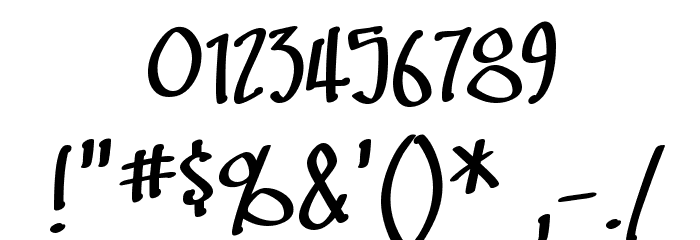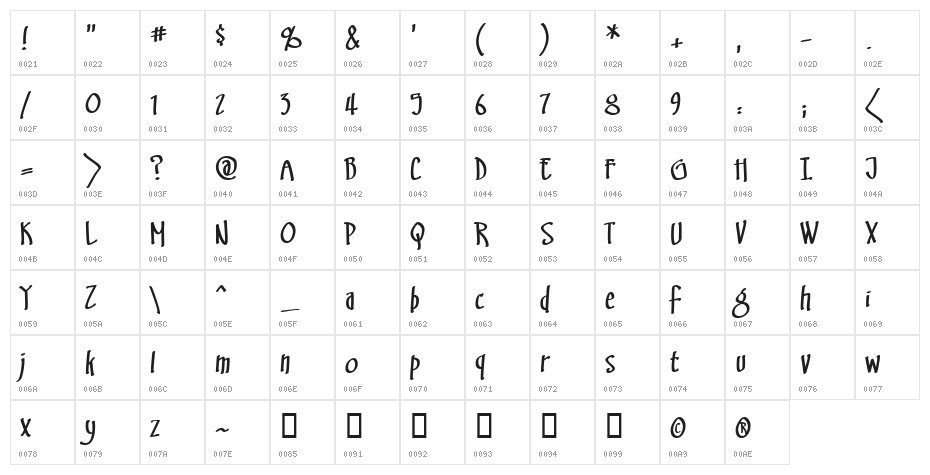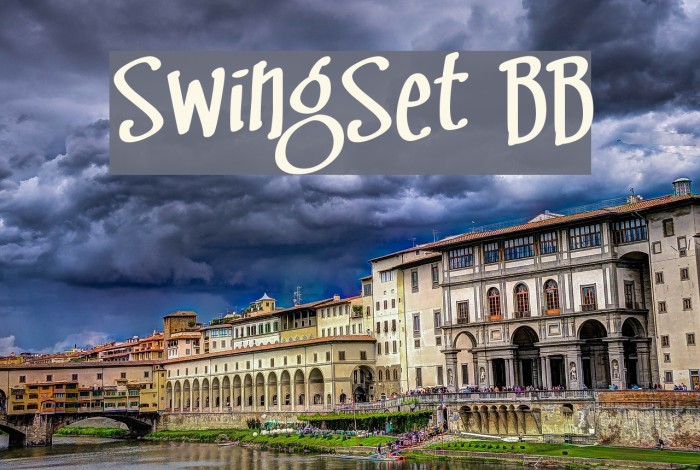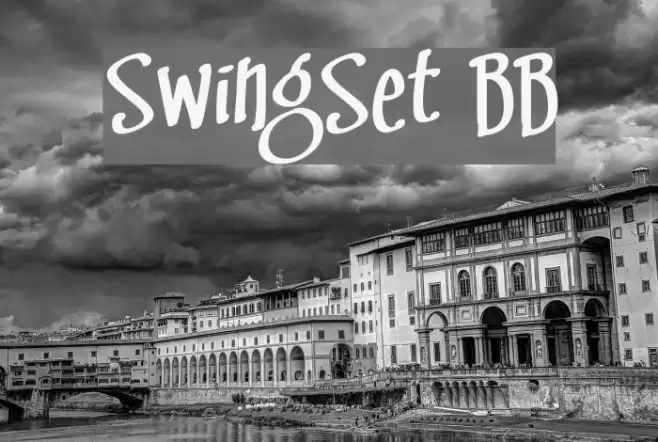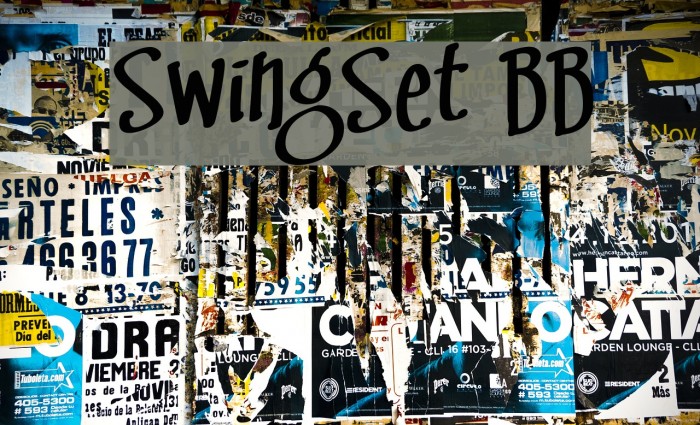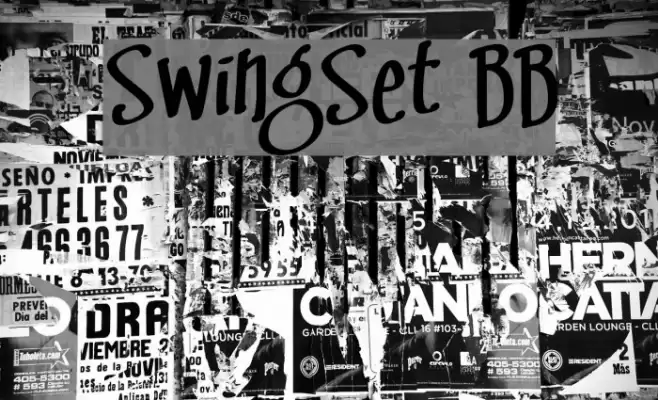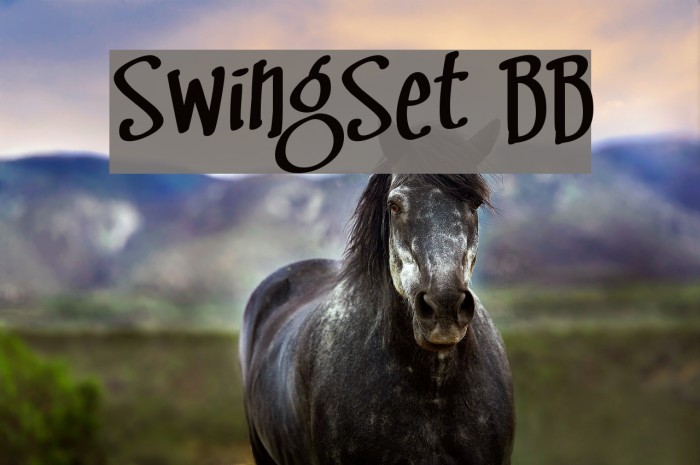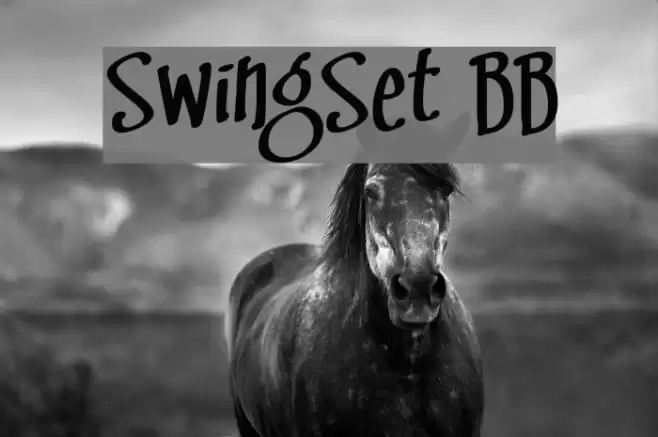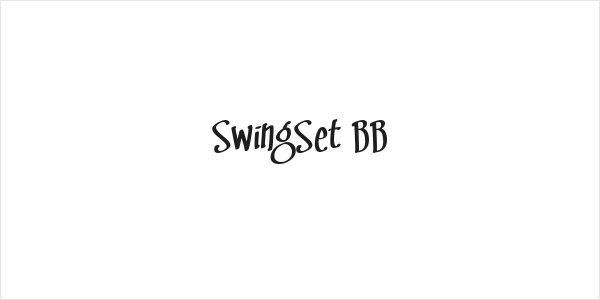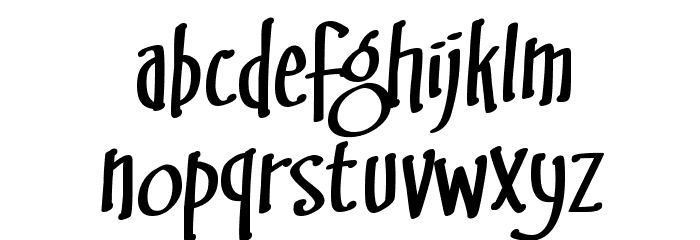
SwingSet BB Font
SwingSet BB Description
This playful and whimsical font features a hand-drawn style with a lively and energetic appearance. The letters have a slightly irregular baseline, adding to the casual and informal feel. The strokes are bold and rounded, giving the font a friendly and approachable look. The uppercase and lowercase letters maintain a consistent style, while the numerals and special characters complement the overall design. This font is perfect for projects that require a fun and engaging aesthetic.